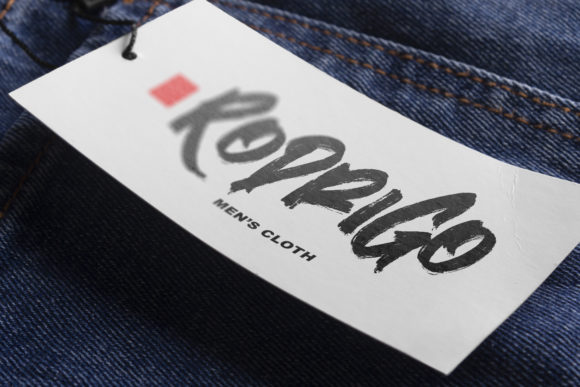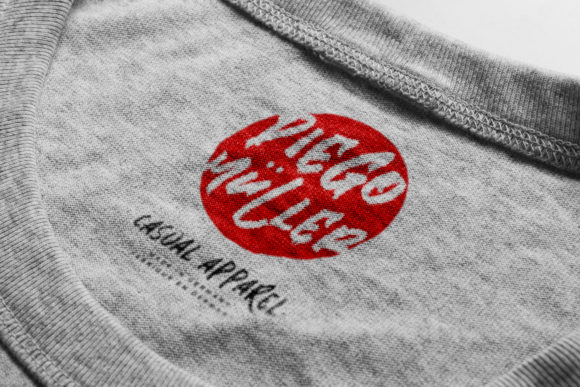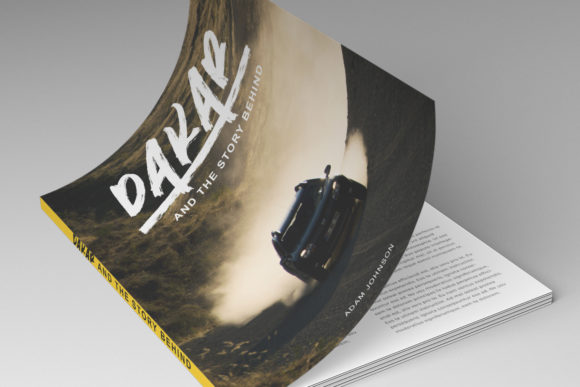
The Urban Charm of Adventuros Font: A Designer’s Delight
I still remember the frustration of working on a branding project for a trendy coffee shop, struggling to find the perfect font that captured the urban, edgy vibe of their brand. The client wanted something that felt modern, yet approachable; something that would make their logo and packaging stand out in a crowded market. That’s when I stumbled upon Adventuros Font, a great handwritten font with a brush style that instantly resonated with the project’s aesthetic. In this article, I’ll share my experience with Adventuros, its features, and how to make the most of it in your designs.
An Honest Review of Adventuros Font
What I Love About Adventuros ✨
- ✅ Urban Style: Adventuros has a unique, urban feel that adds a touch of personality to any design project.
- ✅ Versatility: It’s perfect for a wide range of applications, from branding and packaging to logos, cards, apparel, and social media.
- ✅ Easy to Read: Despite its brush style, Adventuros is surprisingly legible, making it suitable for both headlines and body text.
- ✅ OpenType Features: The font comes with a range of OpenType features, including glyphs and stylistic alternates, which allow for creative experimentation.
- ⚠️ Limited Formality: Adventuros is an informal font, which might not be suitable for very formal or traditional designs.
- ⚠️ Kerning Issues: As with any font, you might encounter kerning issues in certain words or phrases, so be sure to proofread your text.
A Practical Guide to Using Adventuros Font
The Backstory of Adventuros Font
Adventuros was designed by a young, urban artist who wanted to capture the spirit of city living in a font. Inspired by street art, graffiti, and modern typography, Adventuros was born as a versatile, handmade font that could be used in a variety of creative projects.
| Font Name | Adventuros Font |
| Author | Abodaniel |
| What type of projects is Adventuros best suited for? | Adventuros is great for branding, packaging, logos, cards, apparel, quotes, banners, social media, and any project that needs an urban style. |